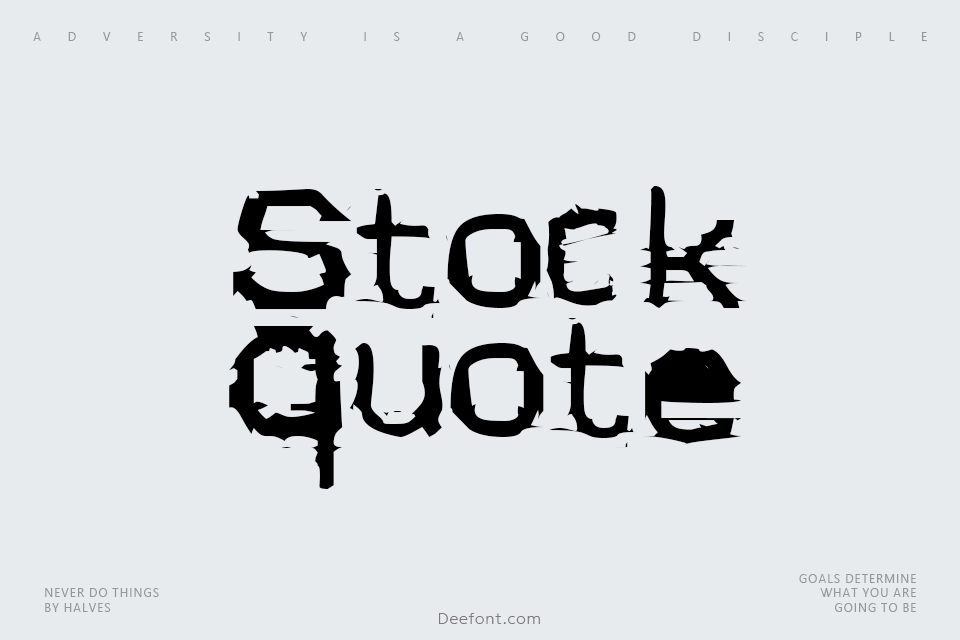
Stock Quote Font
Stock Quote is a decorative display typeface designed by Andy Krahling, featuring a bold and edgy aesthetic with a destroy effect that creates visually striking grungy text. This versatile font is ideal for music album covers, urban-themed designs, posters, and creative projects that require a distinctive graffiti-inspired appearance. With its distinctive distressed character, Stock Quote brings personality and visual impact to any typographic design, making it an excellent choice for designers seeking to add an unconventional and eye-catching element to their creative work.